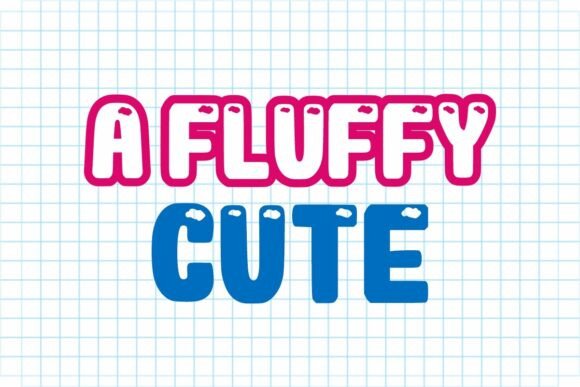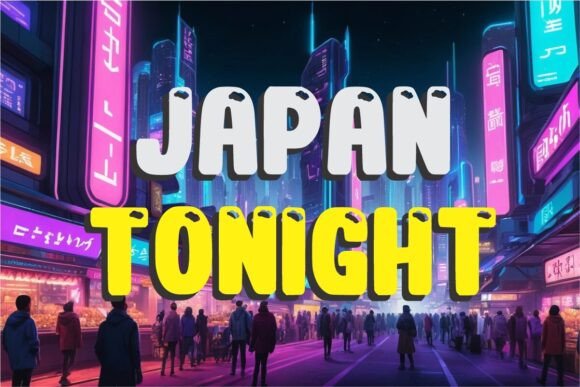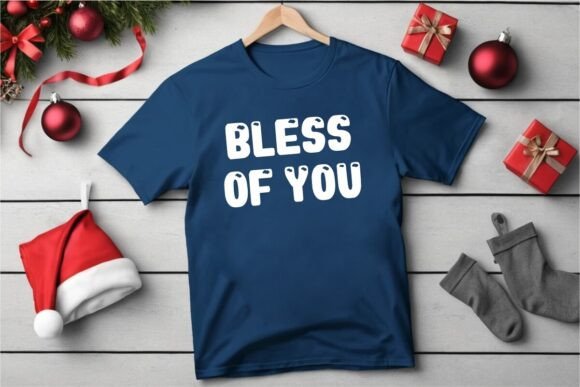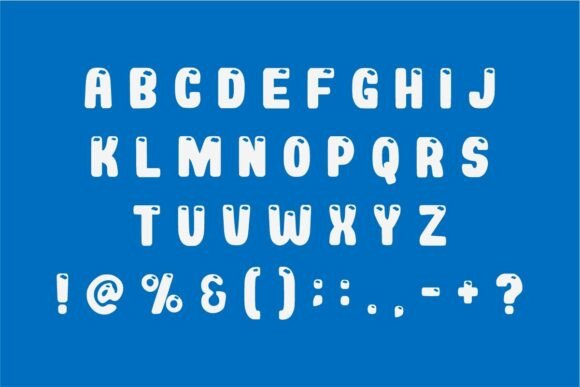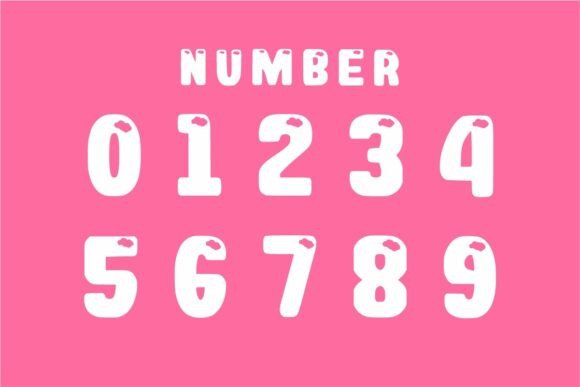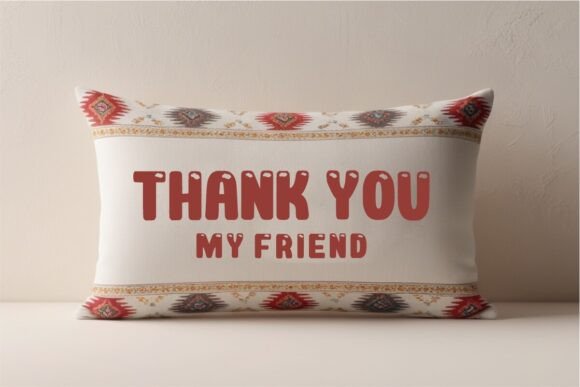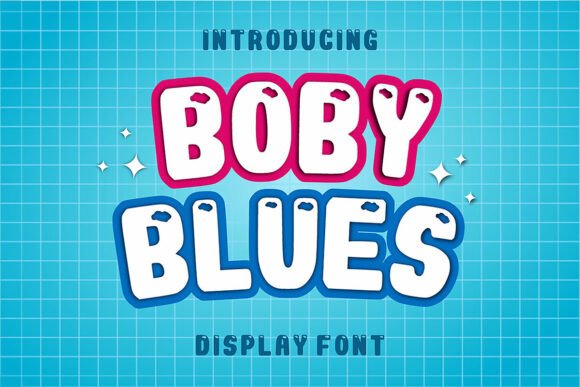
Boby Blues Font: The Perfect Choice for Fun and Creative Designs
Are you looking for a font that can add a touch of playfulness and cuteness to your designs? Look no further than Boby Blues Font! This adorable display font is perfect for kids, playgrounds, or school themes, and can be used for a wide range of creative projects. In this article, we’ll take a closer look at Boby Blues Font and explore its features, uses, and benefits.
What is Boby Blues Font?
Boby Blues Font is a fun and playful display font that is designed to bring a smile to your face. Its cute and cheerful design makes it perfect for use in kids’ projects, school materials, and playful designs. The font features rounded letters, soft curves, and a carefree vibe that is sure to capture the attention of your audience.
Features of Boby Blues Font
Boby Blues Font has several features that make it a great choice for designers and crafters. Some of its key features include:
• Cute and playful design: Boby Blues Font has a unique and adorable design that is sure to add a touch of fun to your projects.
• Rounded letters: The font features rounded letters that give it a soft and friendly feel.
• High-quality design: Boby Blues Font is designed with high-quality graphics, making it perfect for use in digital and print designs.
• Easy to read: Despite its playful design, Boby Blues Font is easy to read, making it perfect for use in body text and headings.
Uses of Boby Blues Font
Boby Blues Font is a versatile font that can be used for a wide range of creative projects. Some of the most popular uses for this font include:
• Kids’ projects: Boby Blues Font is perfect for use in kids’ projects, such as school materials, worksheets, and activity sheets.
• Playful restaurant menus: Add a touch of fun to your restaurant menu with Boby Blues Font.
• Digital designing: Use Boby Blues Font in your digital designs, such as social media graphics, blog posts, and website headers.
• Presentations: Add some personality to your presentations with Boby Blues Font.
• Greeting card making: Use Boby Blues Font to create fun and playful greeting cards for kids and adults alike.
• Crafting: Boby Blues Font is perfect for use in crafting projects, such as scrapbooking, journaling, and card making.
Benefits of Using Boby Blues Font
There are several benefits to using Boby Blues Font in your designs. Some of the most significant advantages include:
• Adds a touch of fun: Boby Blues Font adds a touch of fun and playfulness to your designs, making them more engaging and attention-grabbing.
• Perfect for kids’ projects: Boby Blues Font is specifically designed for use in kids’ projects, making it a great choice for school materials, kids’ websites, and children’s products.
• Versatile: Boby Blues Font can be used for a wide range of creative projects, from digital designs to print materials.
Tips for Using Boby Blues Font
Here are some tips for using Boby Blues Font in your designs:
• Use it for headings: Boby Blues Font is perfect for use in headings and titles, where its playful design can really shine.
• Pair it with other fonts: Boby Blues Font pairs well with other fonts, such as sans-serif fonts and script fonts.
• Experiment with colors: Boby Blues Font looks great in a variety of colors, from bright and bold to soft and pastel.
• Use it consistently: Use Boby Blues Font consistently throughout your design to create a cohesive look.
Font Name Boby Blues Font
Boby Blues Font is a fun and playful display font that is perfect for designers and crafters looking to add a touch of cuteness and playfulness to their designs. With its rounded letters, soft curves, and carefree vibe, Boby Blues Font is sure to capture the attention of your audience. Whether you’re using it for kids’ projects, playful restaurant menus, digital designing, presentations, or greeting card making, Boby Blues Font is the perfect choice.